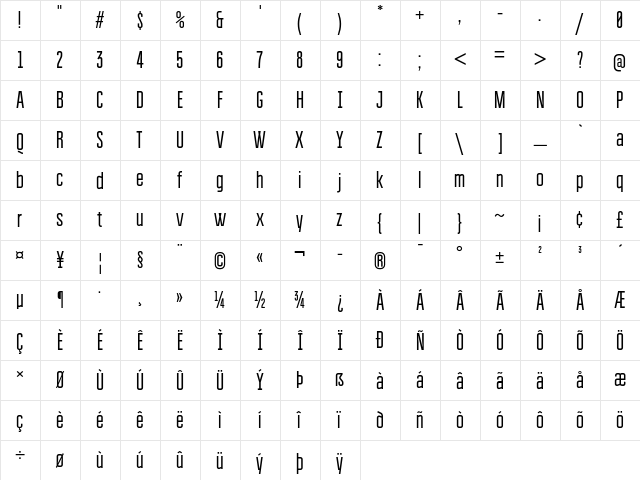
BravoRG Regular
| Foundry | Michael Chereda |
| Designer | Michael Chereda |
Design Context for BravoRG Typeface
BravoRG is a composed and adaptable typeface that performs quietly and consistently across a wide range of design contexts.